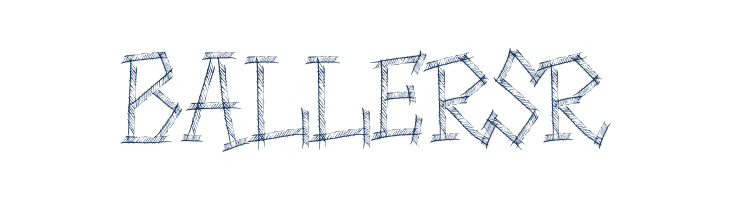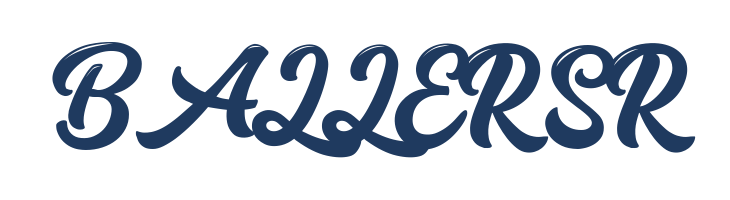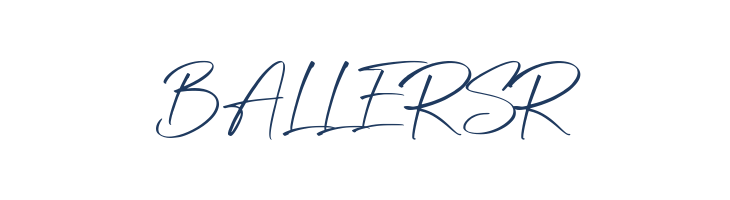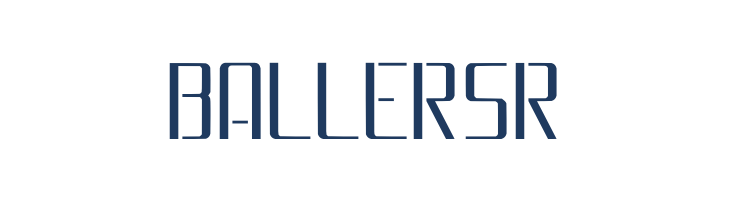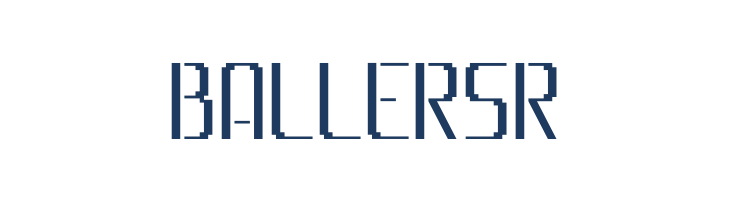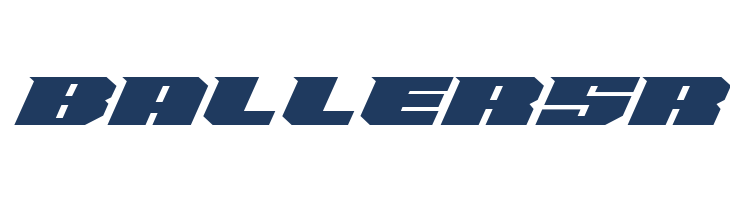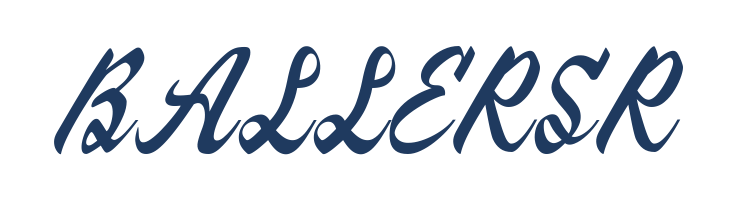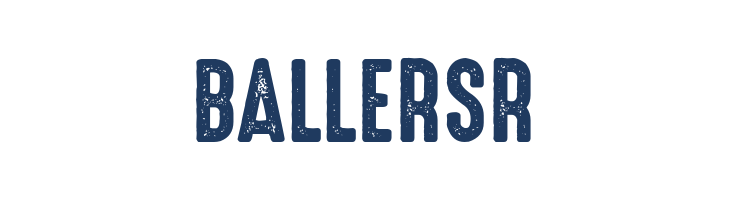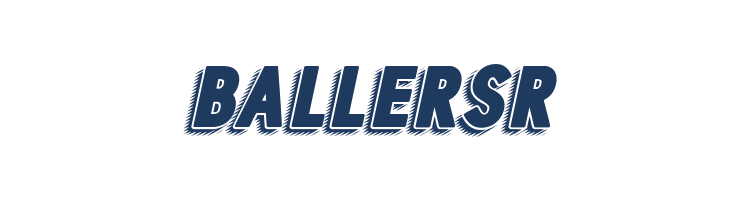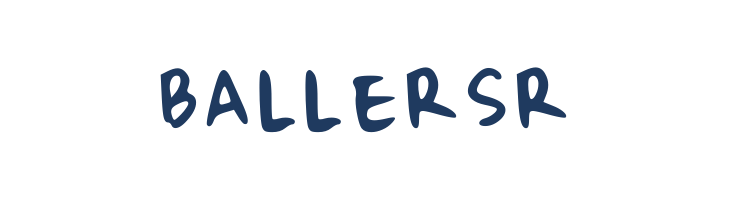
Charger Pro Extended Font
A modern, geometric sans-serif font with a clean and professional appearance.
GrubaBerta Font
Font by Bartek Nowak - www.nowak.tv/fontoholic/
A bold, geometric font with a strong, block-like appearance and uniform thickness.
Biscuit Christmas Font
Font by Scratchones
A playful and whimsical script font with flowing, interconnected letters.
Stage Book Regular Font
Font by Vladimir Nikolic
A bold, futuristic font with geometric elements and unique cutouts.
Philadelphia Semi-Italic Font
Font by Daniel Zadorozny - www.iconian.com
A bold, semi-italic font with a dynamic and energetic style.
Selfilla Font
A graceful script font with flowing, connected strokes and a handwritten style.
Pacitan Limo Demo Font
A bold, geometric font with a modern and cohesive design.
Warsini Font
A playful and elegant script font with a handwritten style.
Madeleine Bold Font
madeDeduk
A sleek, futuristic font with rounded edges and a geometric structure.
Lasttosleep Regular Font
Font by i made things
A playful, handwritten font with uneven strokes and a casual style.
Meyer Gothic NBP Font
A geometric, angular font with sharp edges and a modern, minimalistic style.
Crappity-Crap-Crap Leftalic Font
A bold, hand-drawn font with a playful, leftward slant.
Break Down Font
A geometric, abstract font with straight lines and sharp angles, offering a futuristic look.
MixShaded Font
A playful, bold font with rounded edges and a friendly appearance.
Paralyzed Sky and Moon - LJ-design Studios Grunge Font
A bold, distressed font with a grunge texture and geometric shapes.